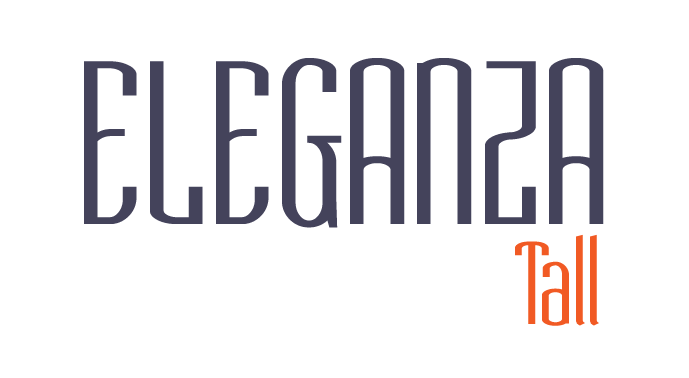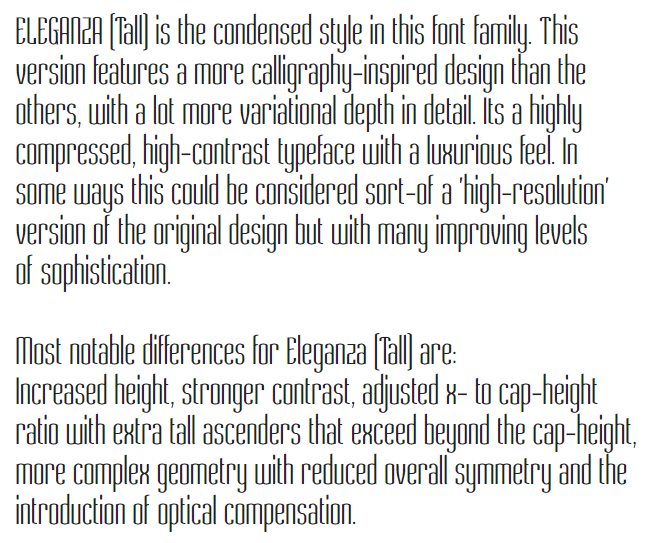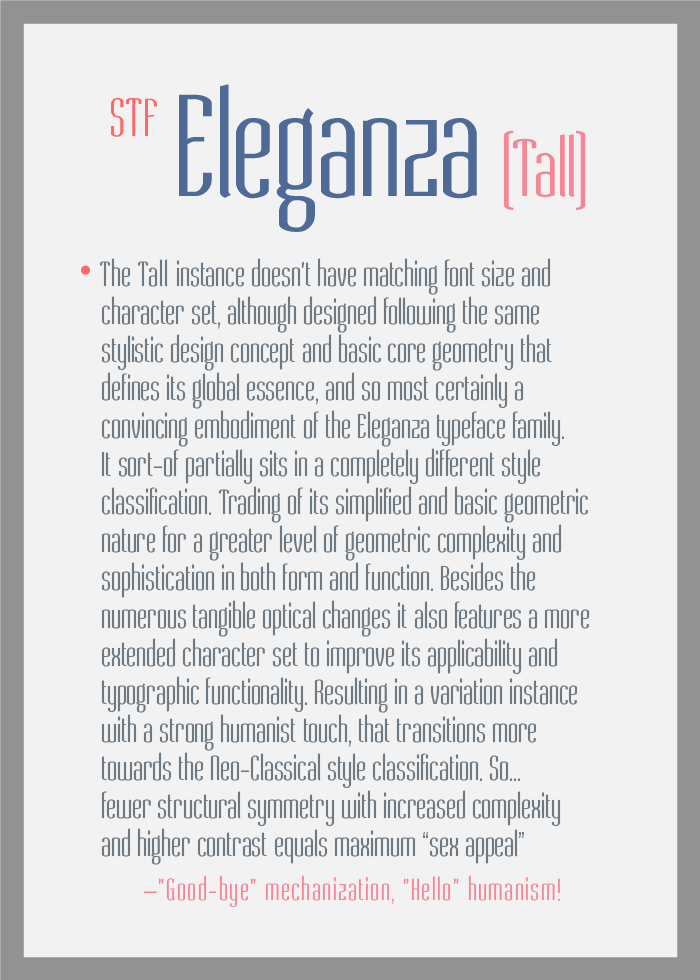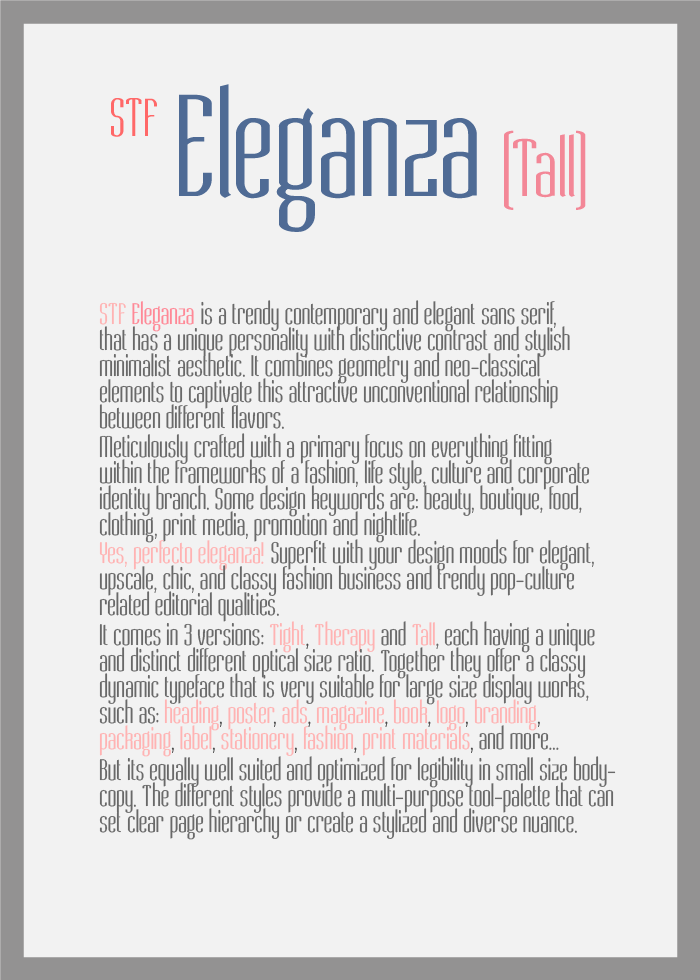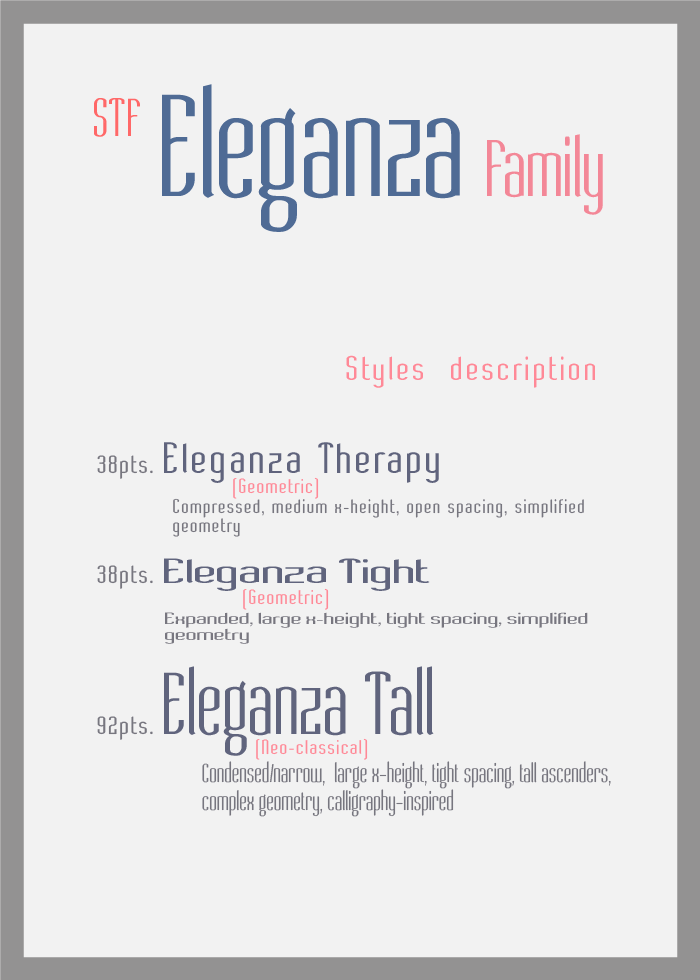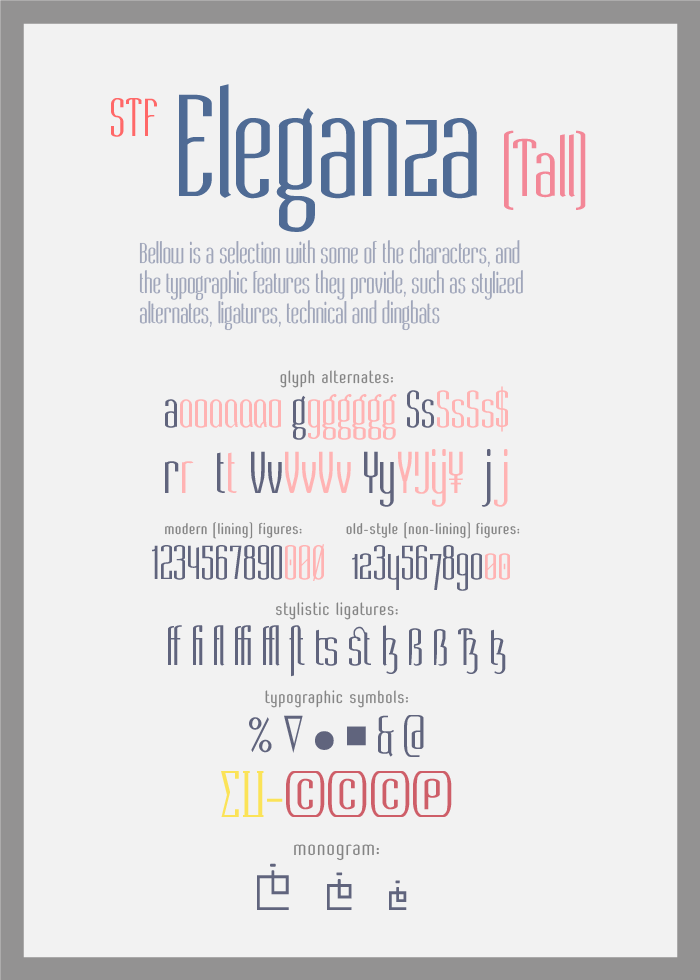
• STF ELEGANZA (Tall) ― Contemporary geometric humanist sans
A font style, that while simplified by old tradition, saw new light by modern sophistication.
It comes in a solid medium weight that is very suitable for body style text with good readability, but it does perfect clean headlines or ads as well.
The goal was to make a clean but somewhat more contemporary and playful take on a 'Grotesque' sans-style.
In an attempt to break away from the traditional trend of Grotesque type designs which evolved more around pure geometric shapes and aim for perfect circular, triangular or square shaped letterforms, that in return give many of them a somewhat harsch and featureless mechanical appearance, I choose to try and achieve the opposite, aiming for a softer, friendlier and more humanized feeling instead.
Dimensions: (in grid units)
X-Height:                   2 .625
Cap-Height:               3 .125
Em:                             3 .5
Brick Size filter:           2 : 2
This is the 'Tall'-style in the 'ELEGANZA' typeface family. This version somewhat strays away from the other two variation instances. Whereas the other versions had a simplified look, this version aims for the oposite and has a much more rich and diverse typographic design. Countless subtle extra little details have been incorporated into the design. The tall and condensed style provides a luxurity look. The main purpose for this version was to provide another level of visual depth and flair into your layout.
Some of the main differences made in this 'Tall'-style are the more complex geometry, other X-Height to Cap-Height ratio, extra characters and the introduction of optical compensations.